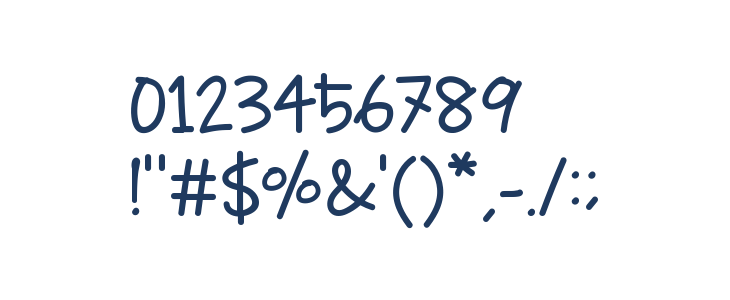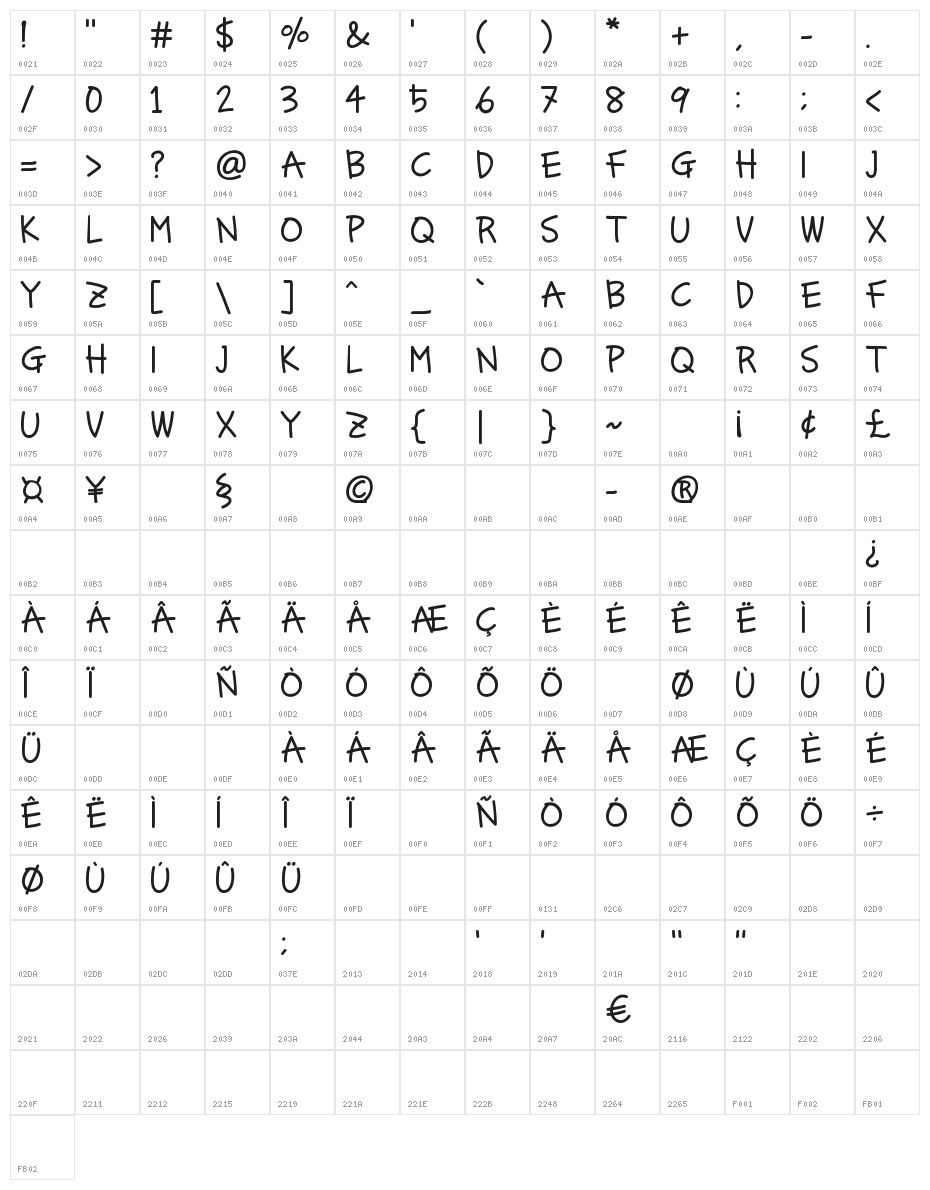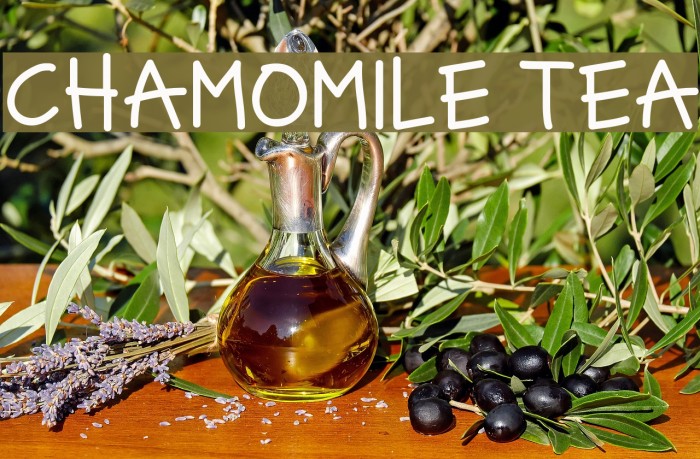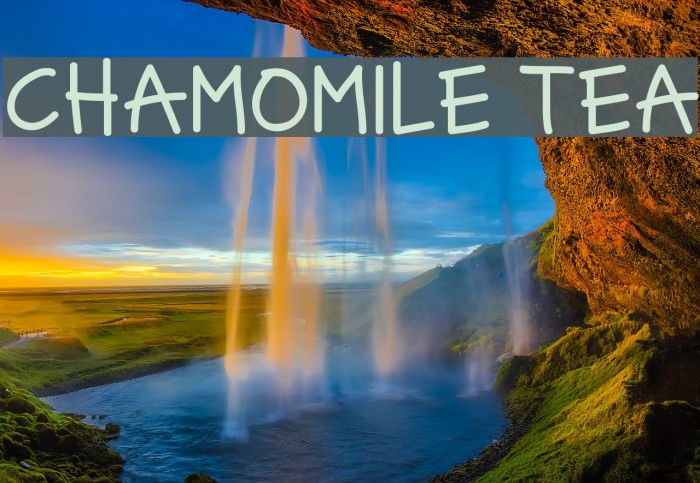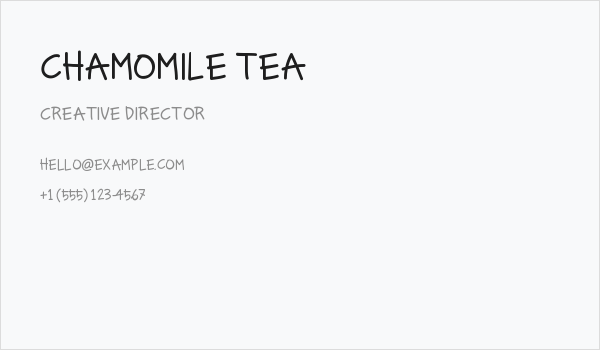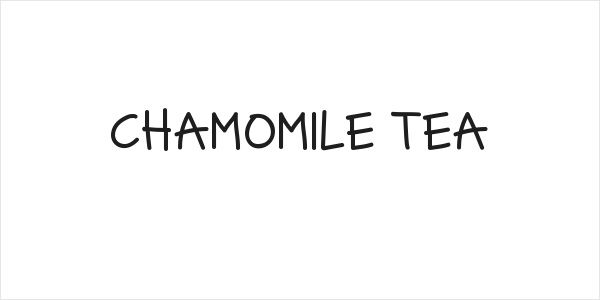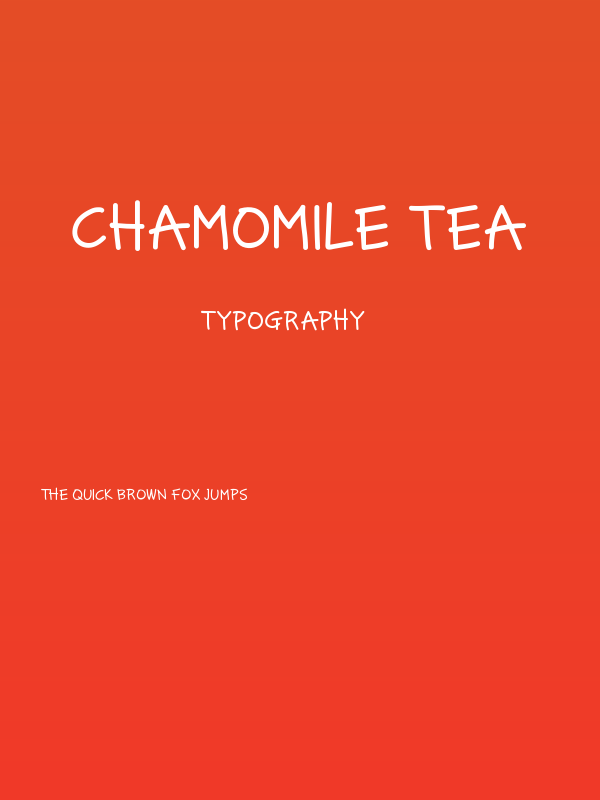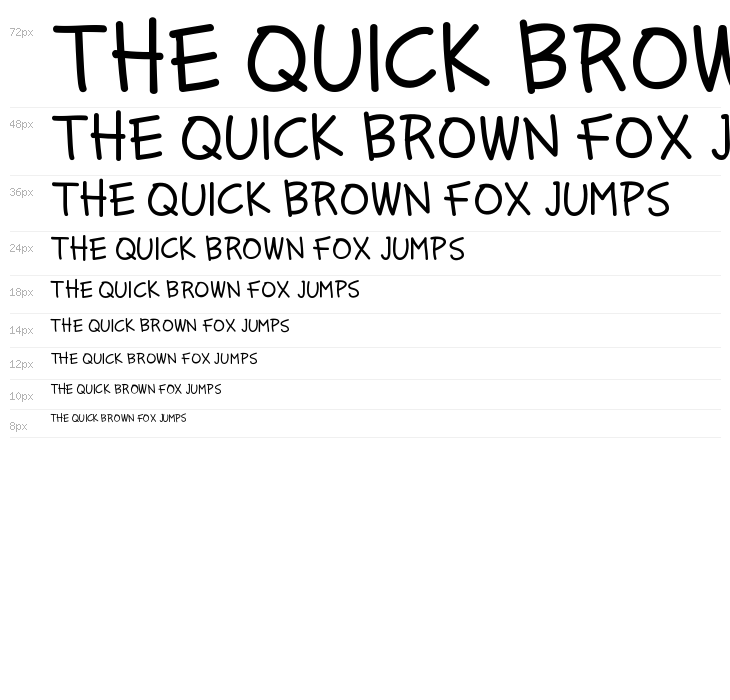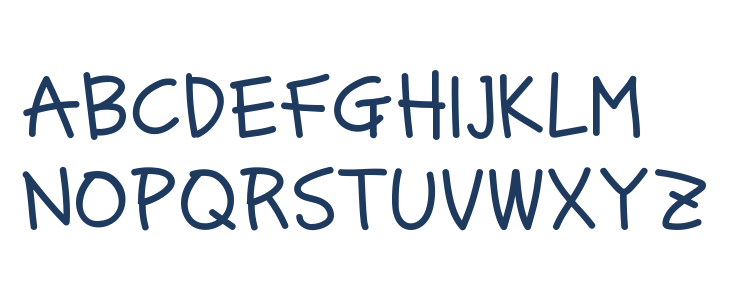
CHAMOMILE TEA Font
CHAMOMILE TEA Description
This font features a playful and informal handwritten style, characterized by its rounded and slightly irregular letterforms. The strokes are consistent in thickness, giving it a uniform appearance while maintaining a casual vibe. The letters are slightly tilted, adding to the dynamic and lively feel of the font. The spacing between characters is moderate, ensuring readability while preserving the font's whimsical nature. It includes a full set of uppercase and lowercase letters, numbers, and a variety of punctuation marks and special characters, making it versatile for different uses.
| Use Case | Headlines, Informal text, Branding |
| Proposed Projects | Ideal for children's books, greeting cards, casual invitations, and playful branding projects. |